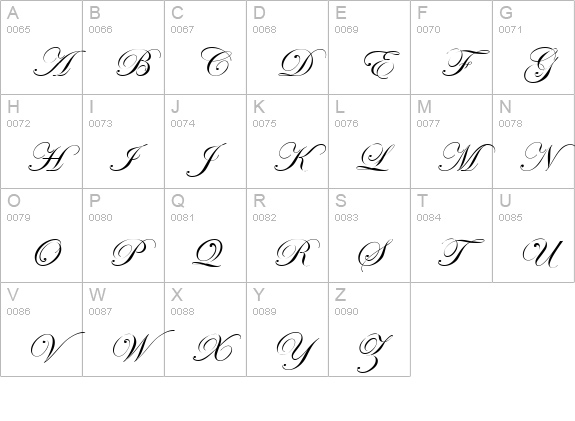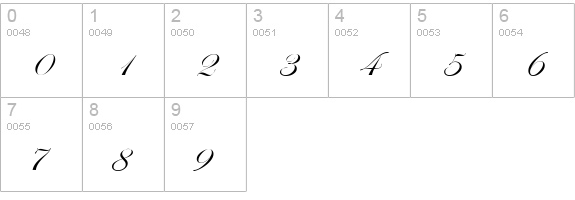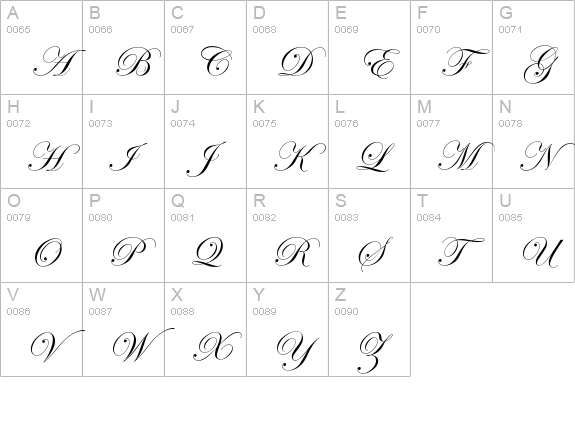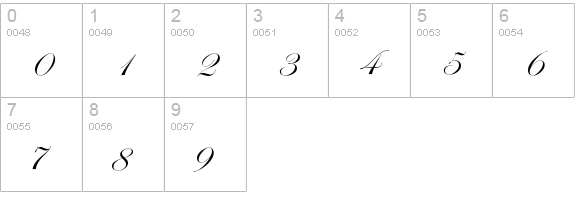
Esenin script Two Font Details
Esenin Script Two font is a stunning and elegant typeface that exudes sophistication and charm. With its graceful curves and delicate lines, this font is perfect for adding a touch of class to any design project. Whether you're creating invitations, greeting cards, or branding materials, Esenin Script Two font is sure to make a statement. The best part? Esenin Script Two font is available for free download at FontsMarket.com. That's right, you can add this beautiful font to your collection without spending a dime. So why wait? Download Esenin Script Two font today and elevate your designs to the next level.